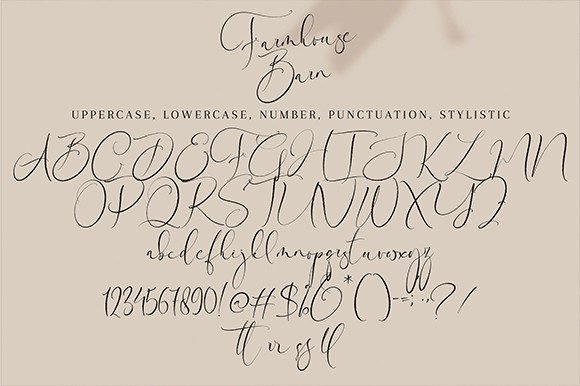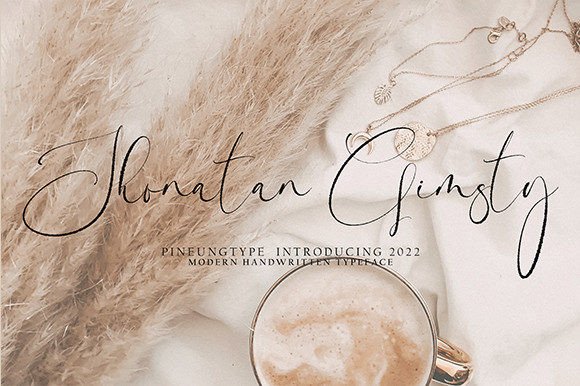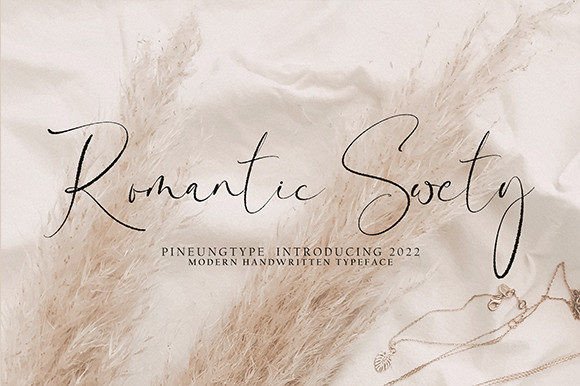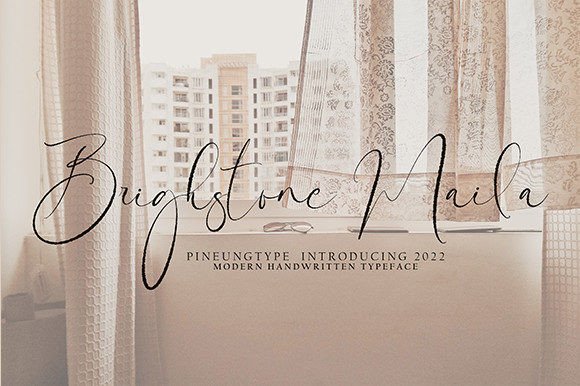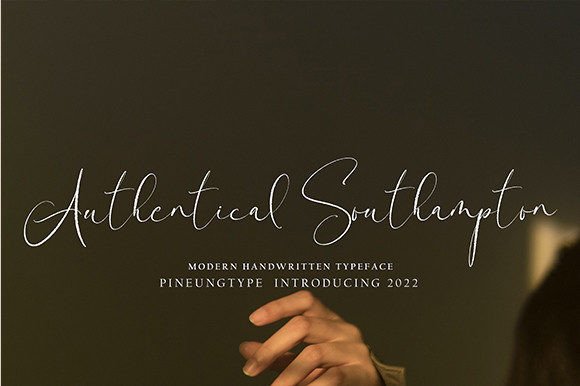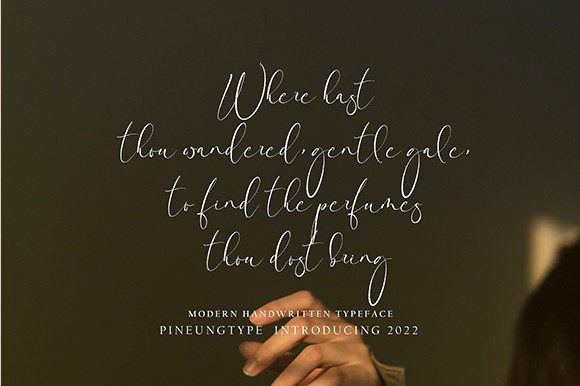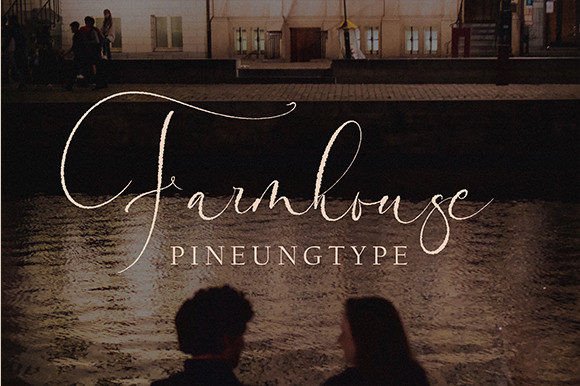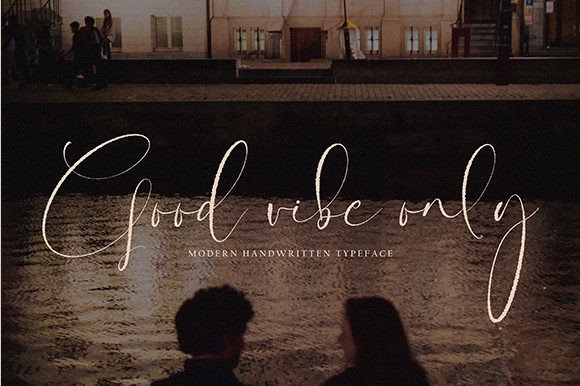
Farmhousebarn Font
Embrace Elegance with Farmhousebarn Font
Farmhousebarn Font is a beautifully flowing handwritten typeface that adds an elegant and timeless touch to your designs. Its smooth strokes and distinctive style make it perfect for a variety of creative projects. Whether you’re working on logos, wedding invitations, or branding materials, Farmhousebarn Font brings warmth and personality to your work.
This font’s elegant flow captures the charm of natural handwriting while maintaining a polished, professional look, making your projects stand out.
Versatile Uses for Farmhousebarn Font
FarmhousebarnFont is ideal for many design applications, including:
• Logos and brand identity
• Wedding and event invitations
• Business cards and stationery
• Product packaging and labels
• Social media graphics and promotional materials
Its distinctive handwritten style enhances your typography with a handcrafted feel, perfect for adding character to your designs.
User-Friendly and Customizable
The font features well-balanced kerning and letter spacing to ensure readability across different sizes, making it suitable for both large headlines and smaller text.
Why Choose Farmhousebarn Font?
Designers and creatives choose FarmhousebarnFont for its unique blend of elegance and natural flow. It adds a personal and stylish touch to both formal and casual projects, helping you communicate your message with warmth and sophistication.
Whether you are a professional designer or a DIY enthusiast, FarmhousebarnFont is a versatile typeface that enhances your creative work beautifully.